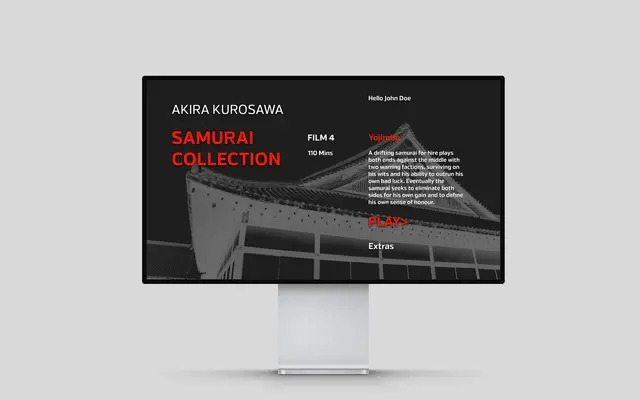
A geometric sans drawing on both Western precision and Japanese design thinking, available in seven weights with matching italics.
Itoya pairs sharp, machine-like geometry with a warmer emotional register, aiming to reflect both Western and Japanese design philosophies without resorting to pastiche. The family spans seven weights from Thin to Black, each with a matching italic, totalling 14 fonts, and covers over 600 characters per style. OpenType features include five number styles, alternate letterforms for a, e, g and y, and language support across Western, Southern and Central European Latin plus Vietnamese.
A geometric sans with sharp, precise edges and a contemporary functional aesthetic, drawing from both Western geometric traditions and Japanese design sensibilities without falling into script or display territory.